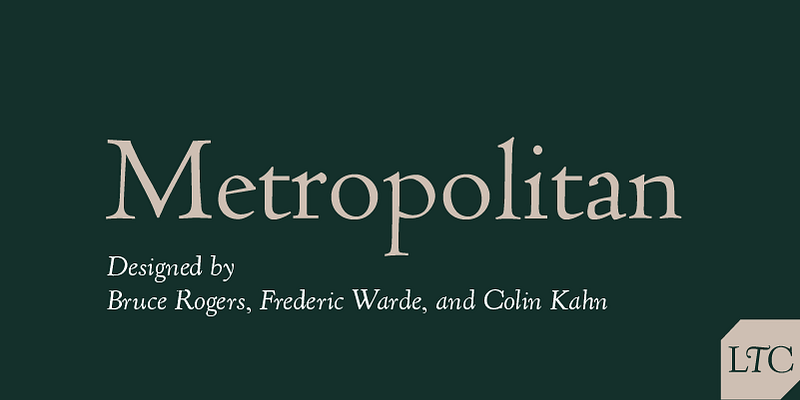
LTC Metropolitan Pro Font Free Download is a sophisticated serif typeface inspired by early 20th-century newspaper and book typography. With its sharp serifs, balanced proportions, and vintage charm, this font is perfect for editorial layouts, literary projects, high-end branding, and formal invitations. It exudes authority and refinement while maintaining excellent readability.
Designed for versatility, LTC Metropolitan Pro works beautifully in both display and body text settings. It integrates smoothly with industry-standard tools like Adobe InDesign, Illustrator, and Canva, making it a reliable choice for professional designers who value timeless style.